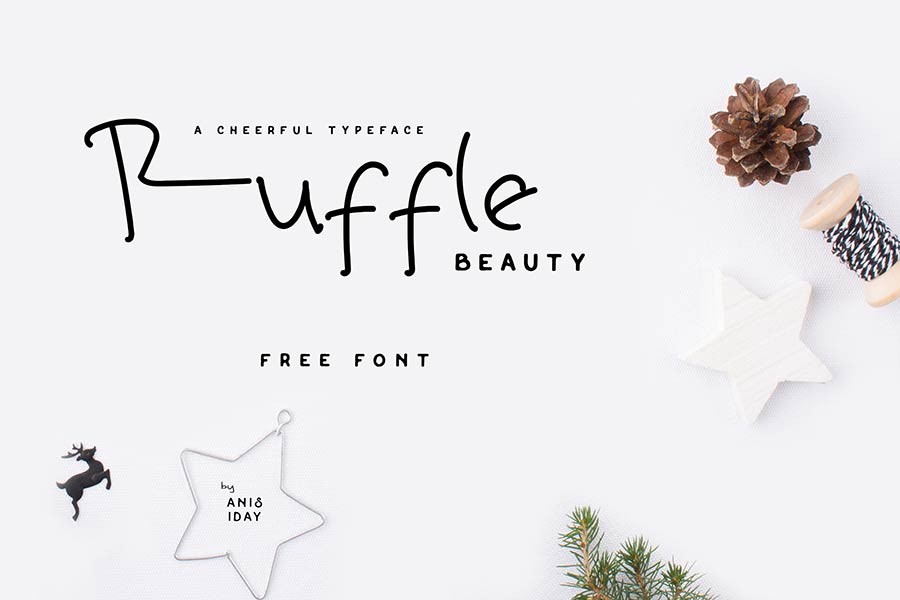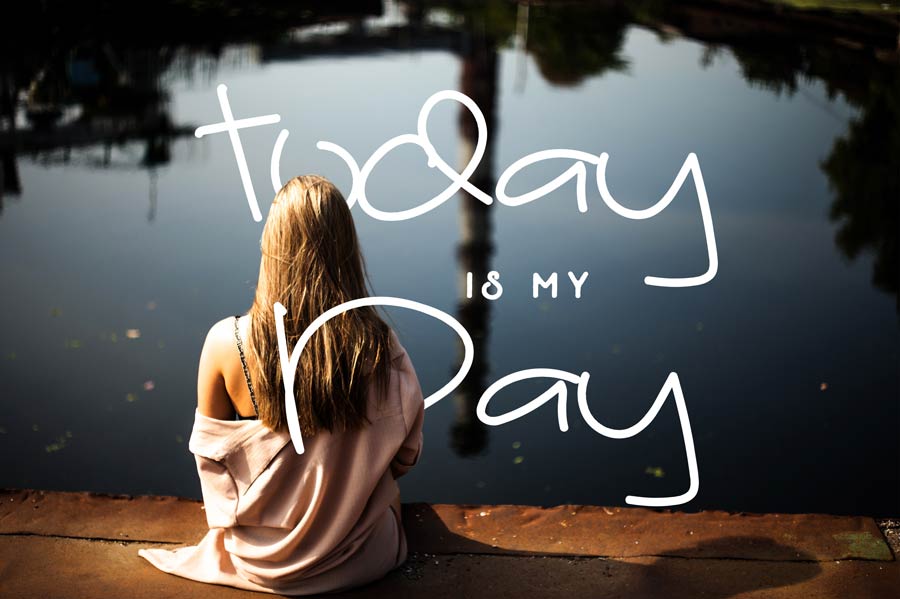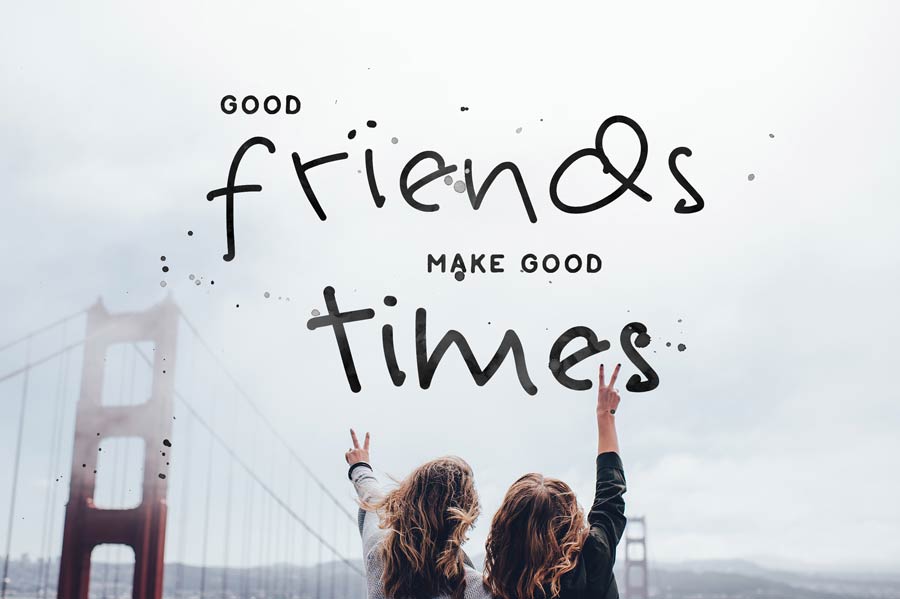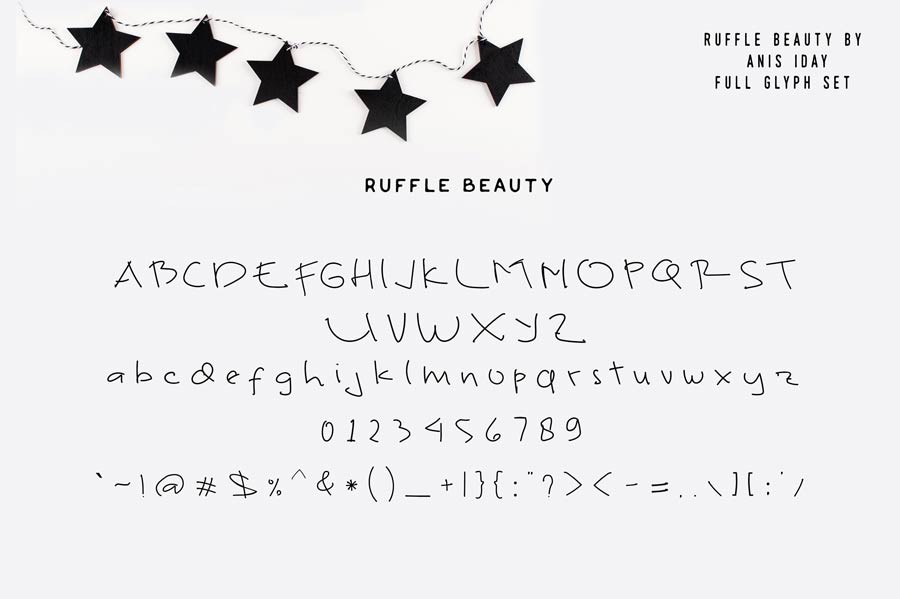
Ruffle Beauty is a playful, casual and chilling handwritten font that you can download for free. I can really imagine that the designer created this font while lying on a cozy sofa and enjoying the breezing weather. This font comes with basic latin characters and can be used on commercial projects.
- Designer: Anis Iday
- Category: Handwriting